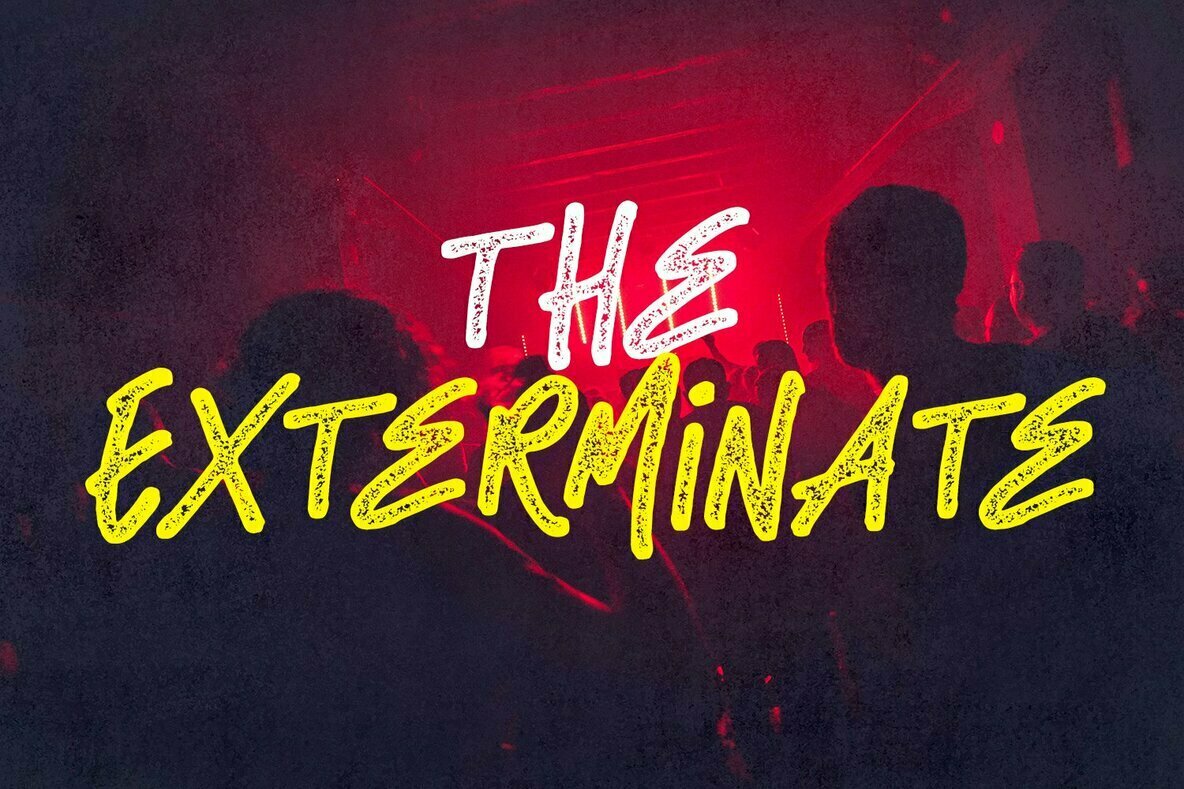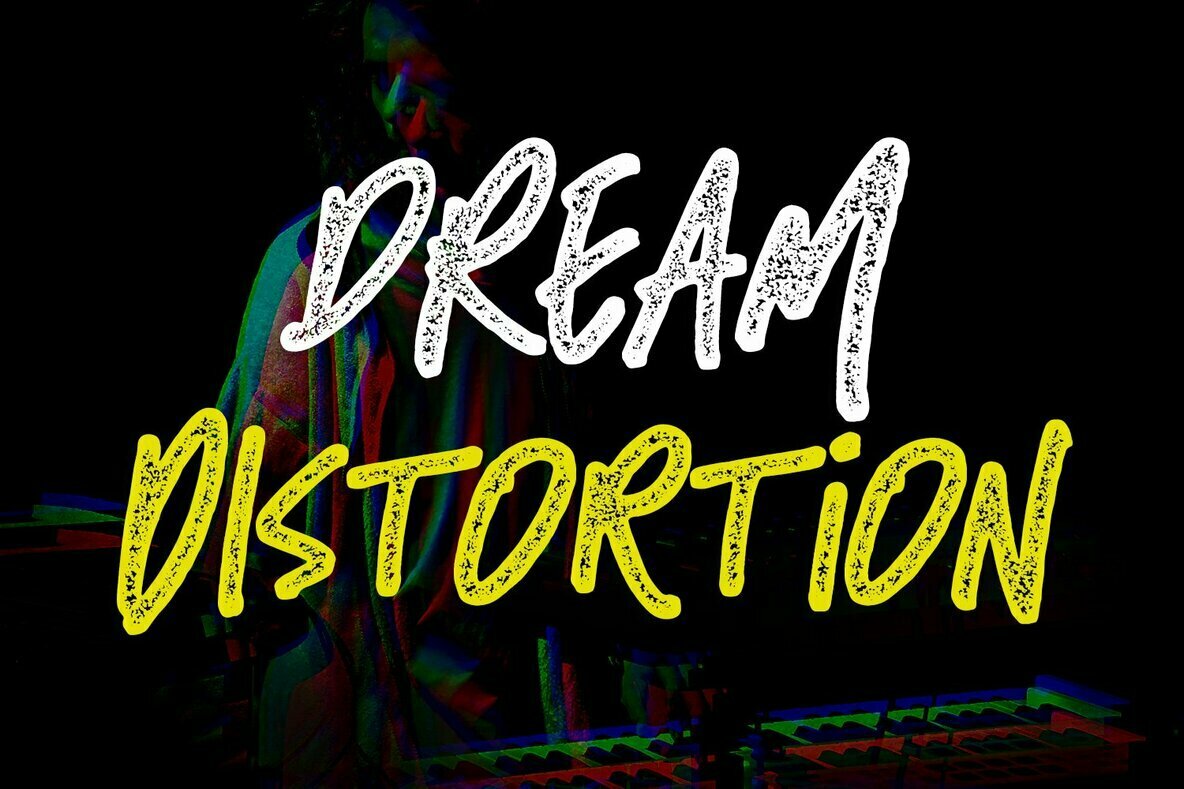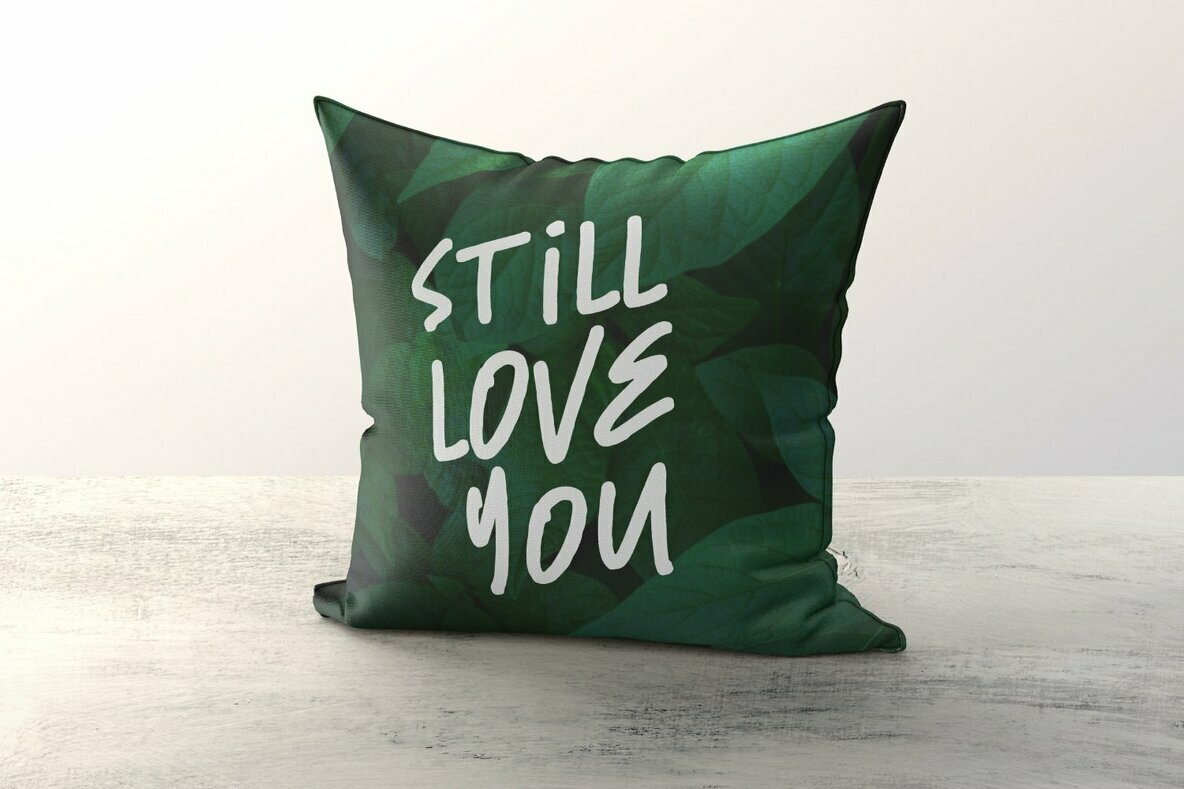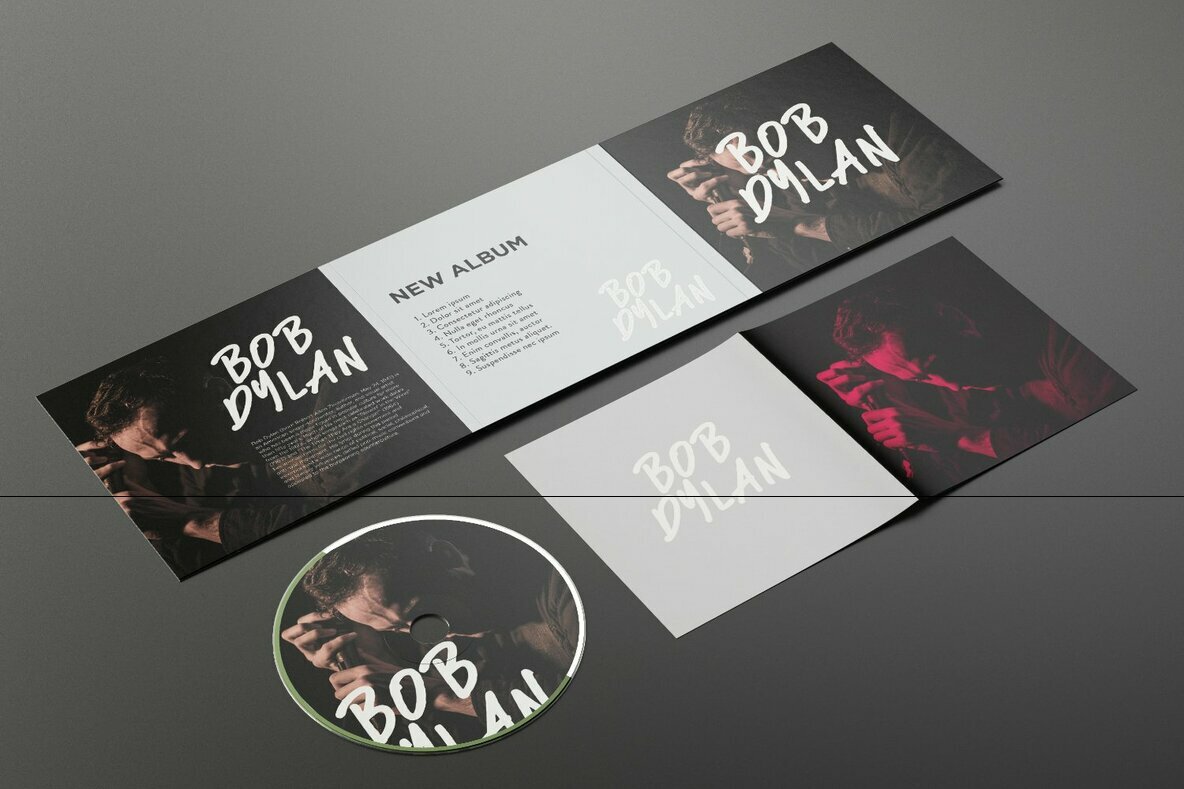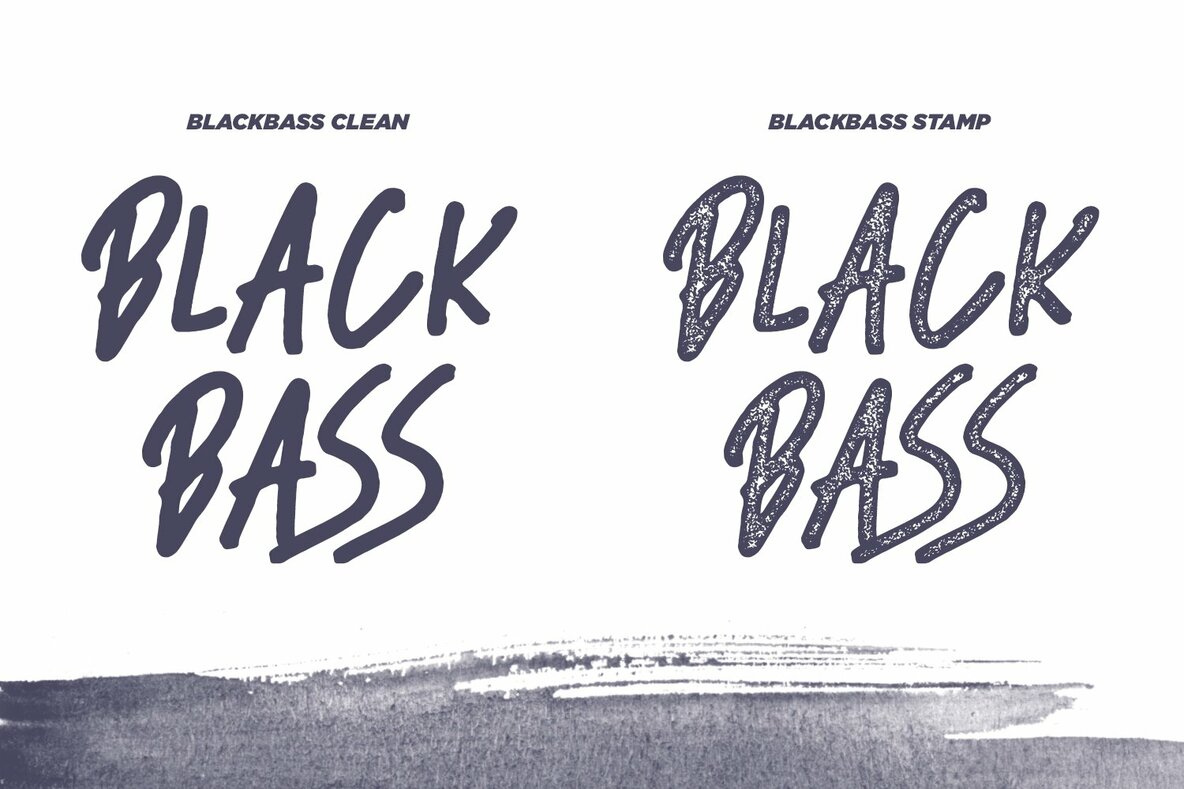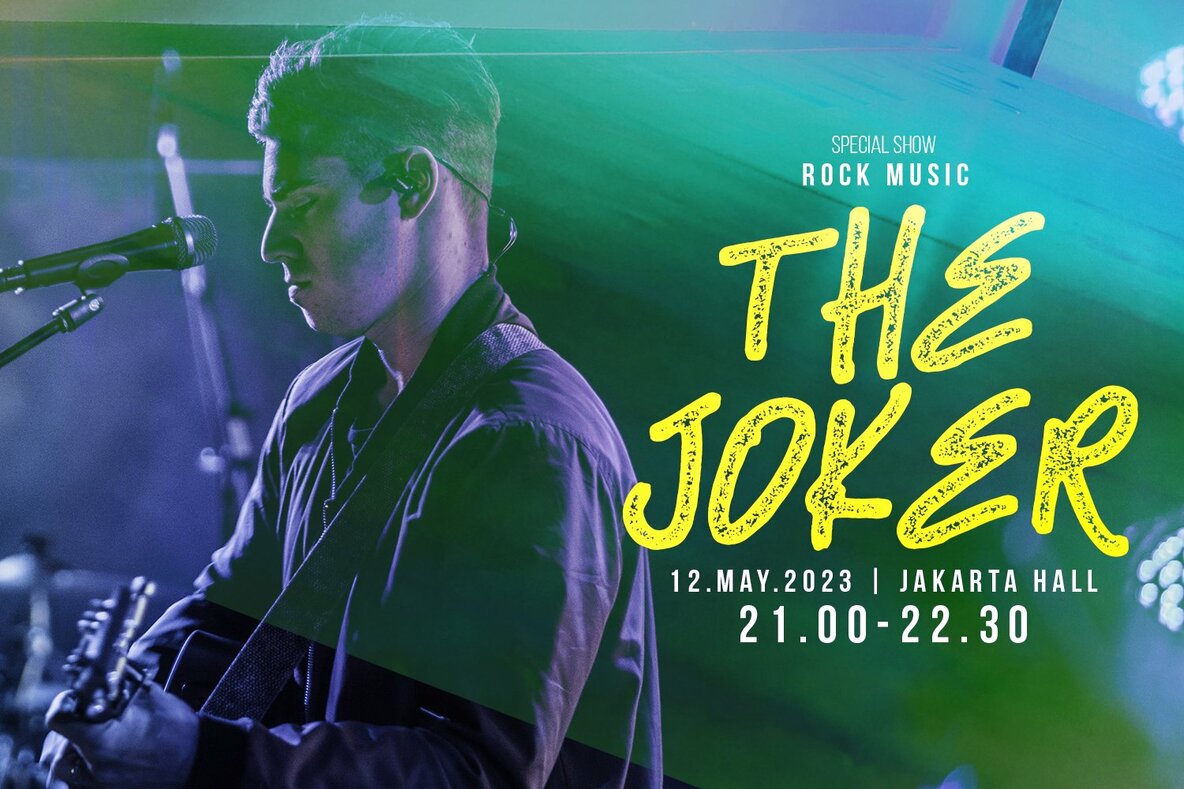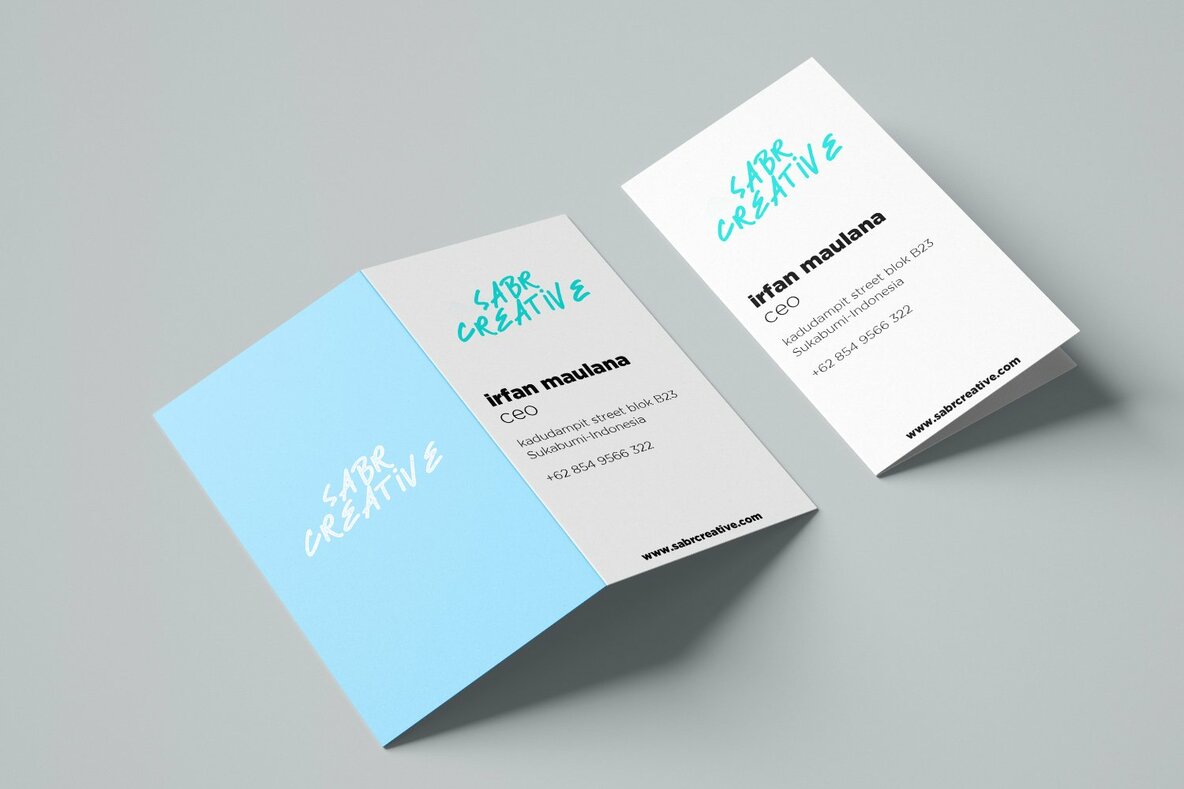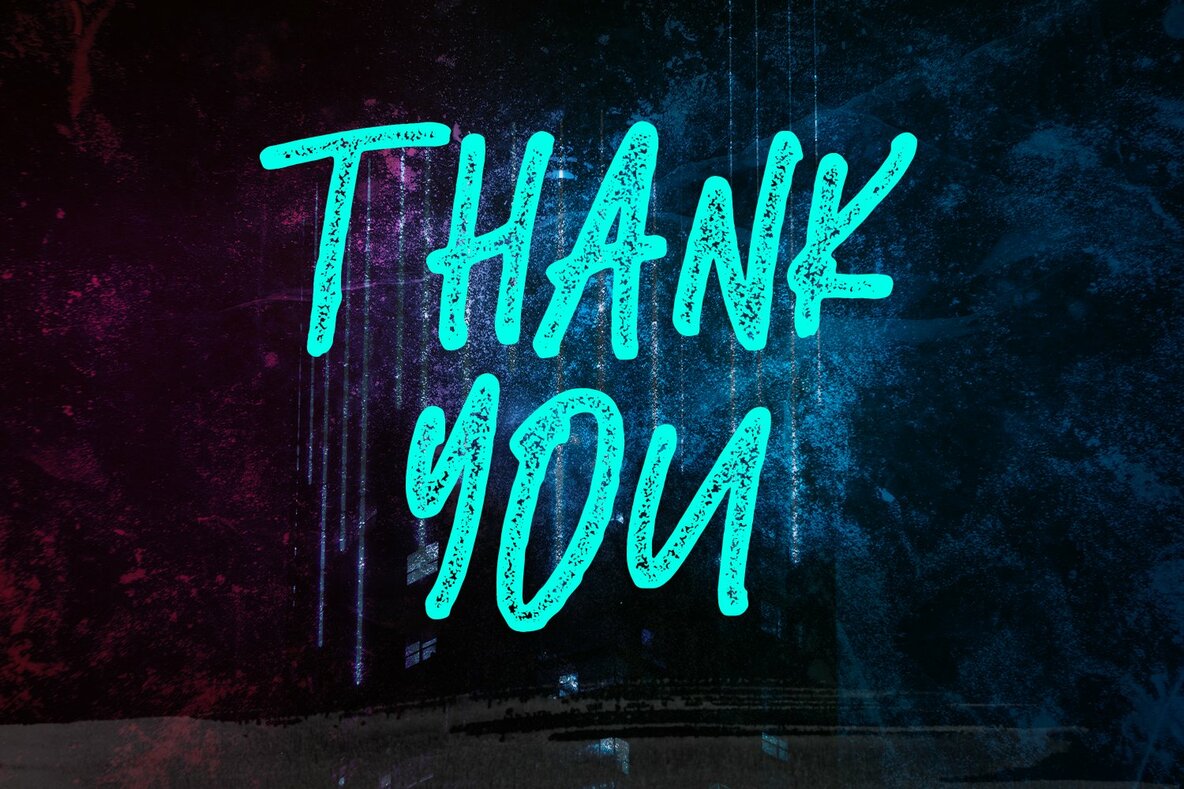
Black Bass Font
Dive into the boldness of the Black Bass font by Sabrtype Studio, a design resource crafted to make a powerful statement. With its two distinctive styles, Clean and Stamp, Black Bass brings versatility to your projects, allowing for a range of aesthetics from polished to rugged. This font is particularly well-suited for applications that require a commanding presence. Consider it for logos, clothing designs, T-shirts, hoodies, impactful quotes, and product packaging. Wherever you need strong design elements, Black Bass rises to the occasion effortlessly. Features:Black Bass: Bold and Natural Typeface for Strong Designs